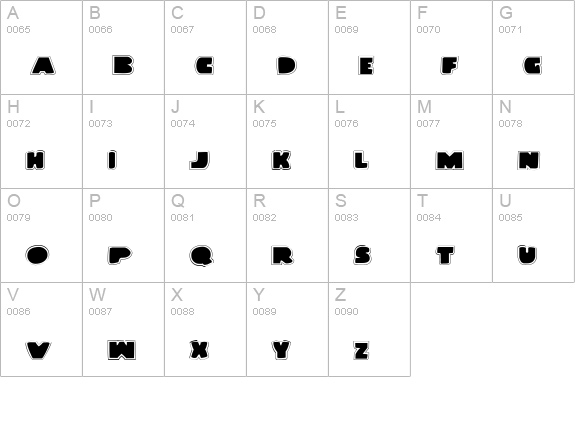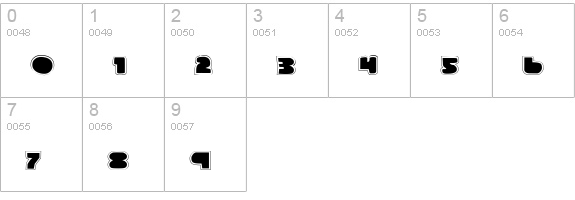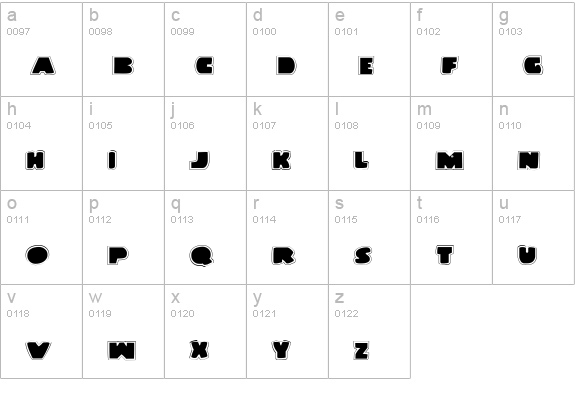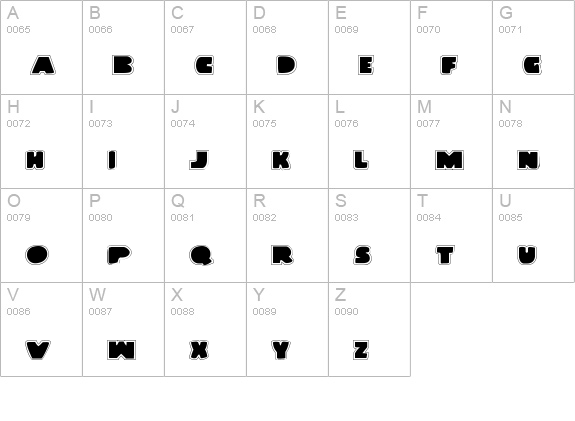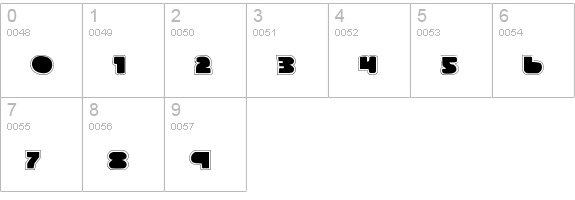
Introducing Land Whale Pro, a captivating and versatile font that is sure to make a bold statement in any design project. With its strong and dynamic curves, Land Whale Pro exudes confidence and elegance, making it the perfect choice for branding, headlines, and eye-catching designs. This font is a true powerhouse, capable of capturing attention and leaving a lasting impression. Whether you're creating a logo for a cutting-edge tech startup or designing a trendy fashion magazine, Land Whale Pro will effortlessly elevate your work to new heights. Not only does Land Whale Pro possess a striking aesthetic, but it also offers exceptional functionality. Its wide range of weights and styles allows for endless creative possibilities, ensuring that your designs will always stand out from the crowd. And the best part? Land Whale Pro is completely free! That's right, this incredible font is freely available to download at FontsMarket.com. So, you can enhance your projects with this exceptional typeface without breaking the bank. Don't miss out on the opportunity to incorporate Land Whale Pro into your designs. Download it today and experience the transformative power of this remarkable font.